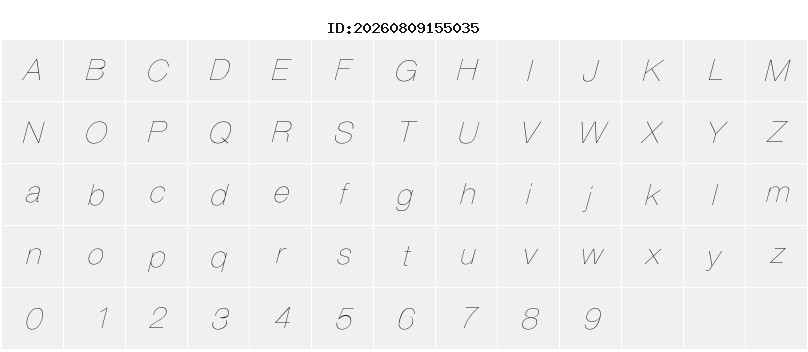
• Font Name: PartridgeObl-Th
• Full Font Name: PartridgeObl-Th
About PartridgeObl-Th.ttf
PartridgeObl-Th.ttf is a modern, elegant sans-serif font designed for ultimate readability and visual harmony. Perfect for branding, headlines, web design, and print materials.